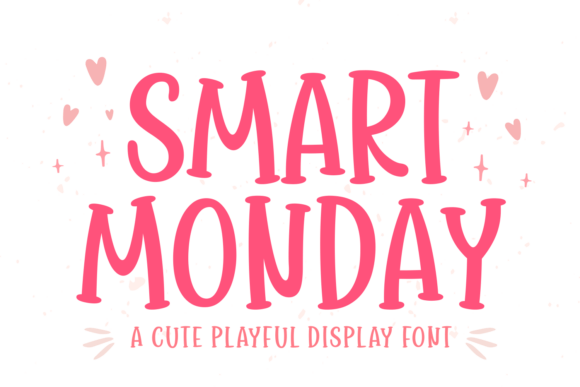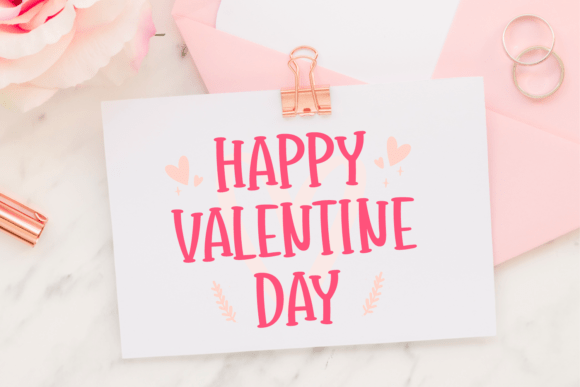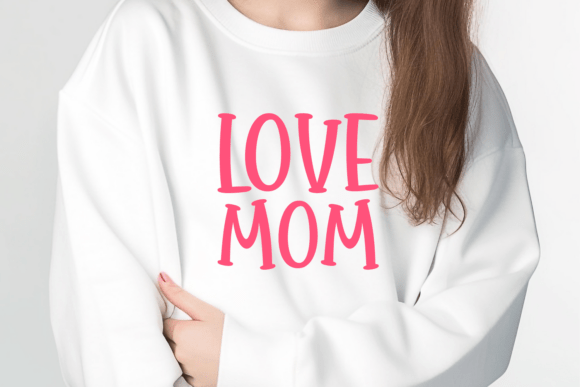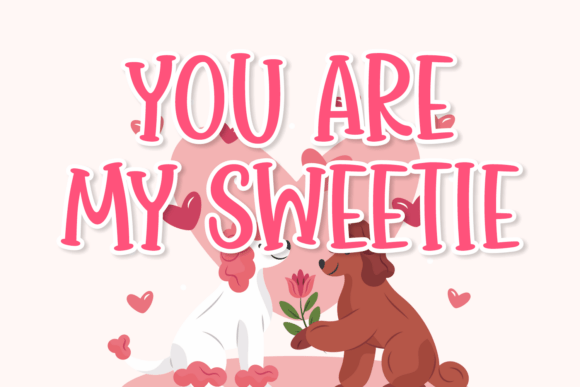
Smart Monday Font
Inject a dash of sweet boldness into your designs with Smart Monday, a vivacious Valentine’s font. Its robust serifs combined with broad characters make it a sure-fire way to grab attention. This fine font exudes versatility – it’s the perfect choice for creating head-turning headlines or designing punchy posters. Package your products with a memorable touch or let your merchandise pop with this charming font. It’s your secret weapon for creating quotable quotes, compelling banners and eye-catching t-shirt typography. With Smart Monday, you can pour a little love into your designs, making it a perfect fit for Valentine’s Day projects or amping up your product labels and so much more. Elevate your design game today with Smart Monday.